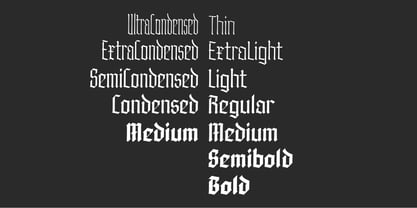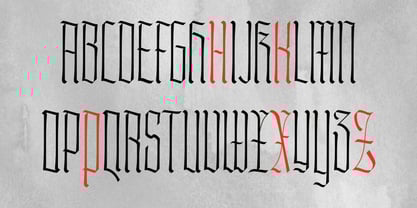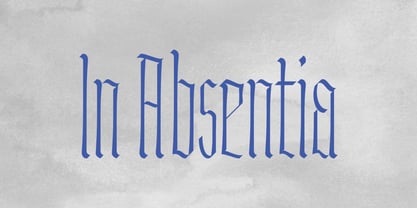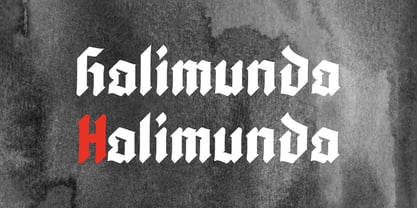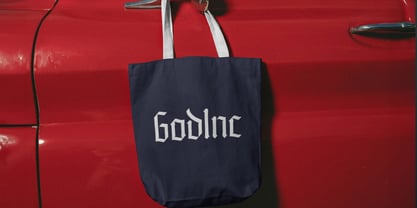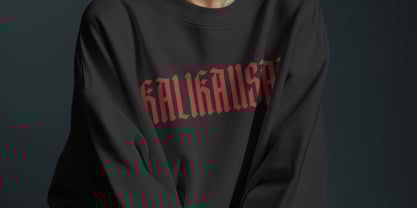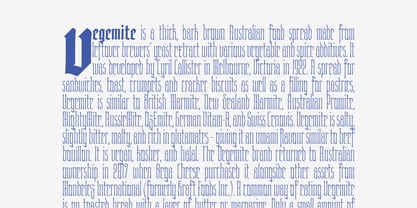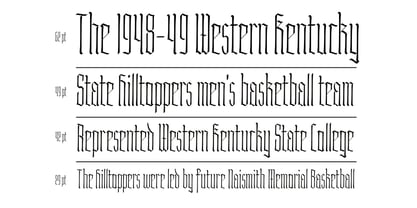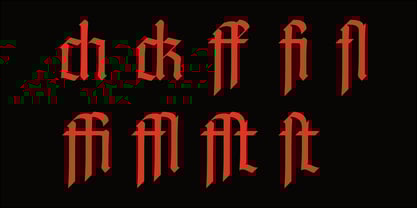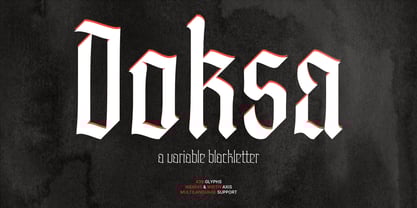
Doksa
by Onje Studio
The Doksa Font Family was designed by Intan Driyo and published by Onje Studio. Doksa contains 36 styles and family package options.
Doksa: Modern Variable Blackletter Doksa offers a modern take on Textura Blackletter, simplifying its forms while preserving the distinctive angularity of the traditional hard-nib calligraphy. Its two axes Weight (Thin to Bold) and Width (UltraCondensed to Medium), provide more flexibility for any graphic design to fit their ideas. Feature: - Uppercase, Lowercase - Punctuation and Marks - Symbols - Alternatives & Ligatures